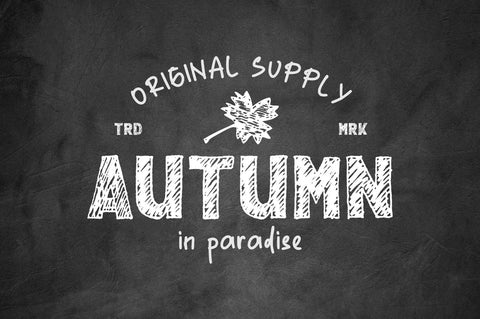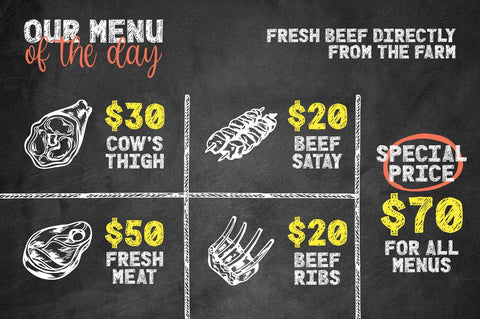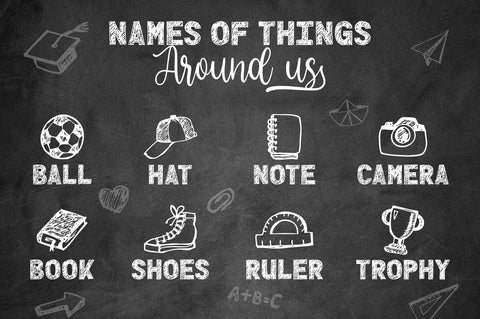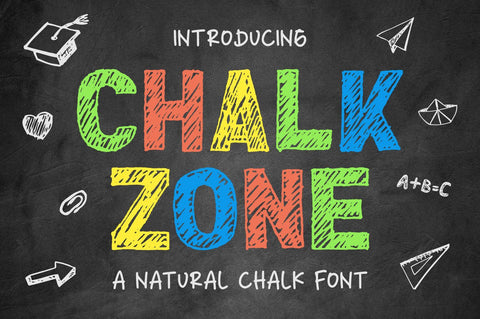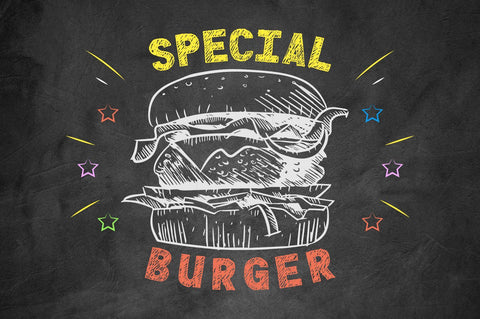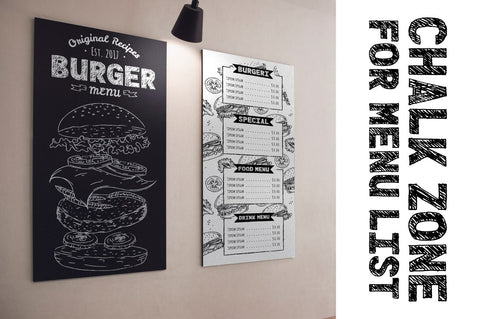
Chalk Zone – A Natural Chalk Font
Introducing Chalk Zone- A Natural Chalk Font
This Chalk Zone font is inspired by the writing of chalk on the blackboard of a school. With a natural touch of chalk and rough will add beauty and originality to a writing in the style of chalk. It is suitable for use in a variety of designs with shades of rough or you want to use it with a touch of chalk style, as applied to t-shirts, menu boards, quotes, handletings, posters, logos or other designs.